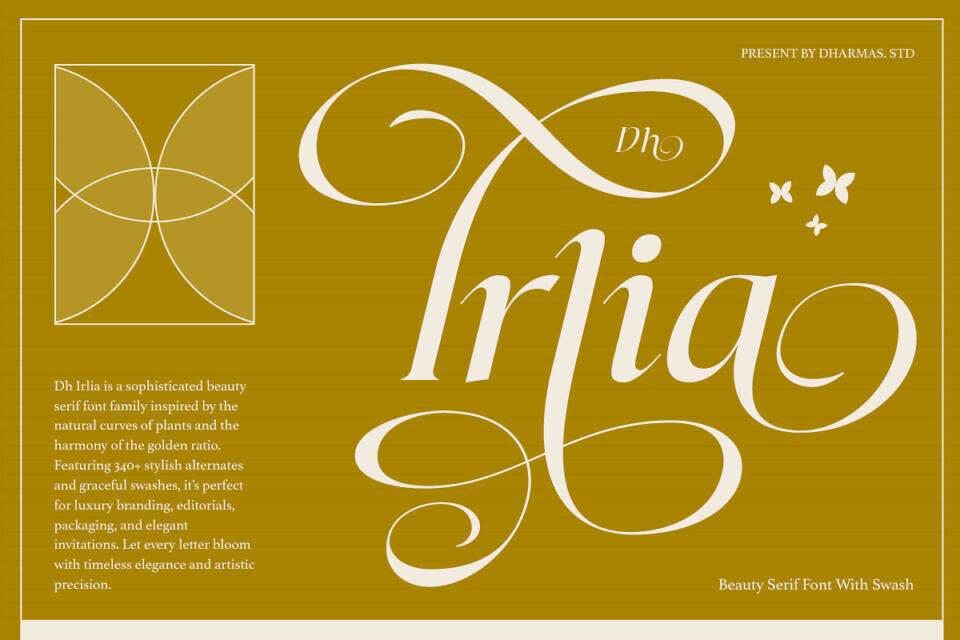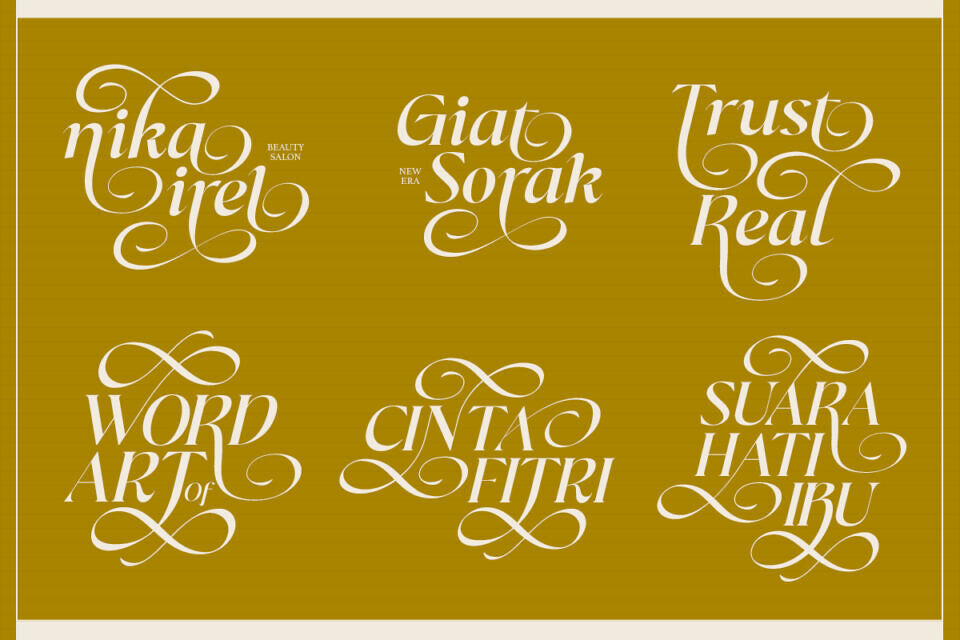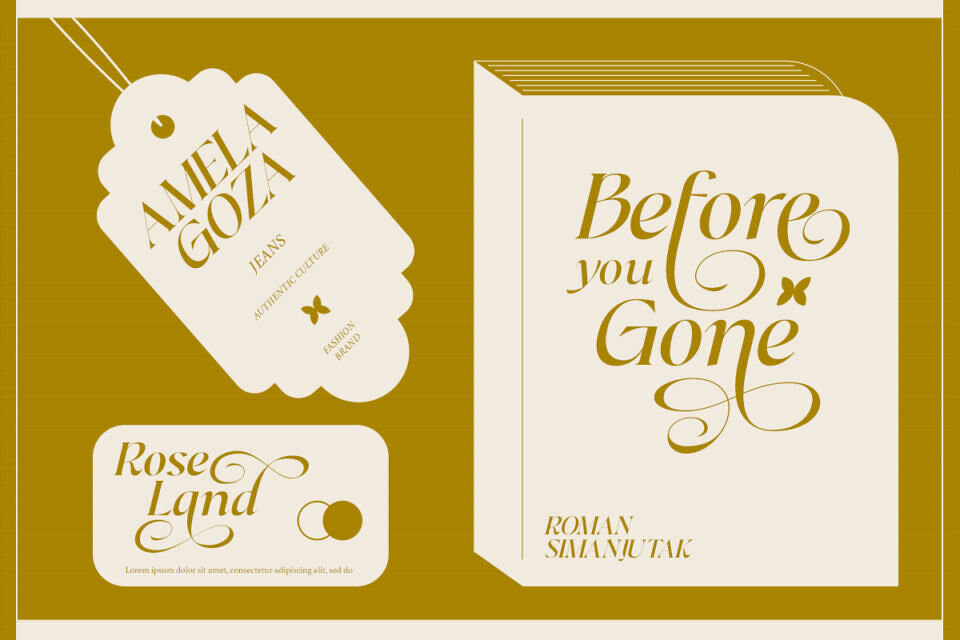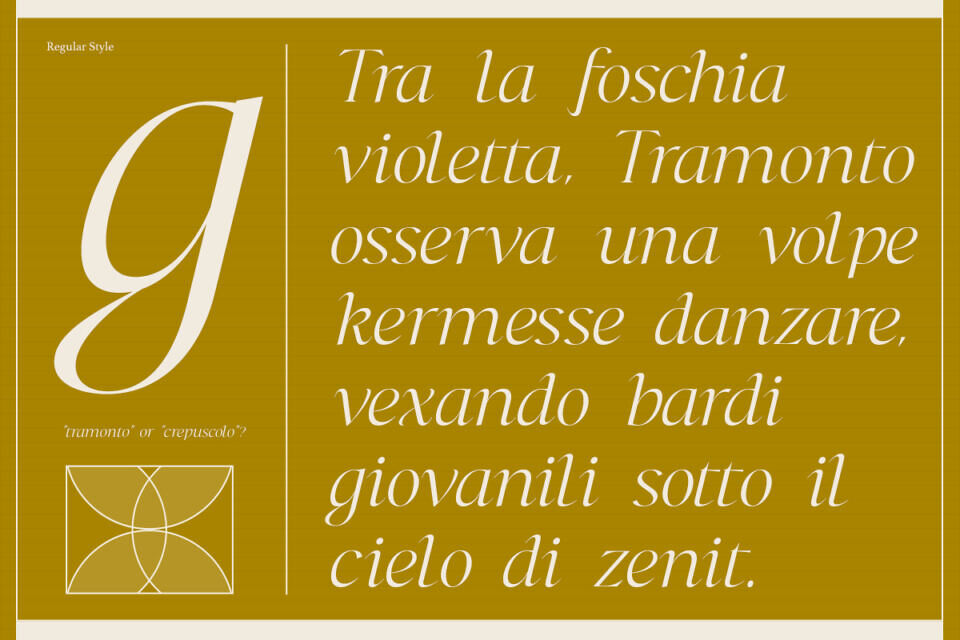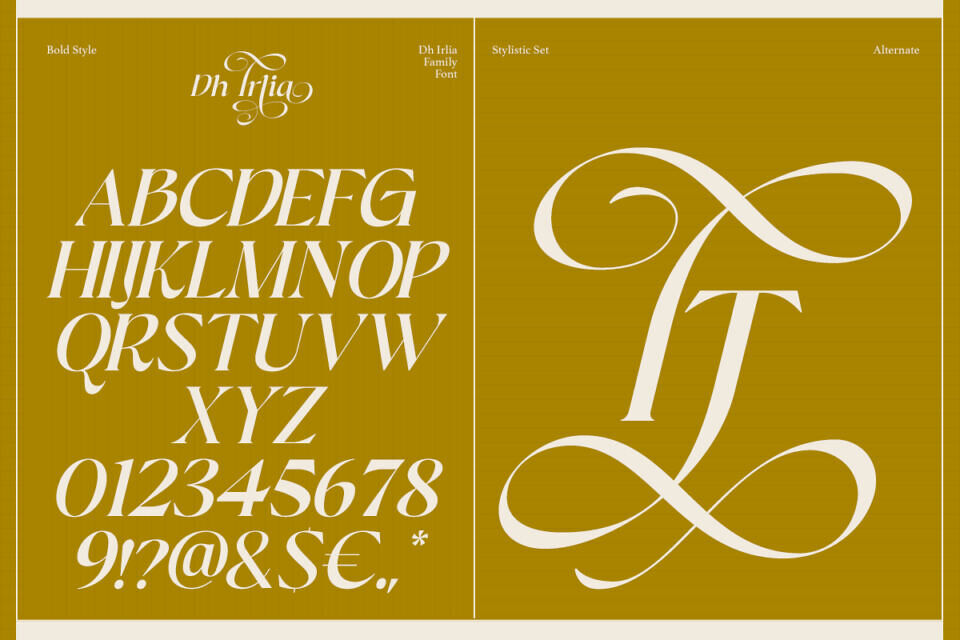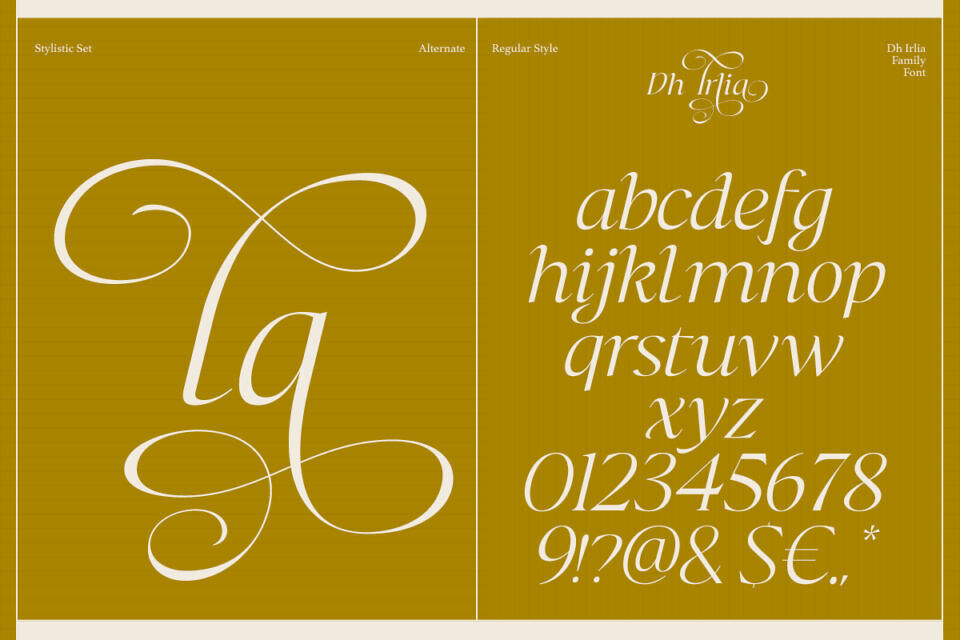
Dh Irlia is a sophisticated serif typeface family that combines fashion-forward elegance with expressive swashes. Designed with refined curves, graceful strokes, and a luxurious aesthetic, it is ideal for branding, fashion editorials, beauty packaging, wedding invitations, and high-end promotional design. Its balance of classical inspiration and modern refinement makes it a timeless choice for any creative project.
With 7 distinct styles — Thin, Extra Light, Light, Regular, Medium, Semi Bold, and Bold — Dh Irlia provides versatile typographic expression, from delicate to striking. Featuring uppercase and lowercase letters, numbers, punctuation, symbols, and multilingual support, this family ensures global usability while bringing a sense of charm, luxury, and sophistication to every design.